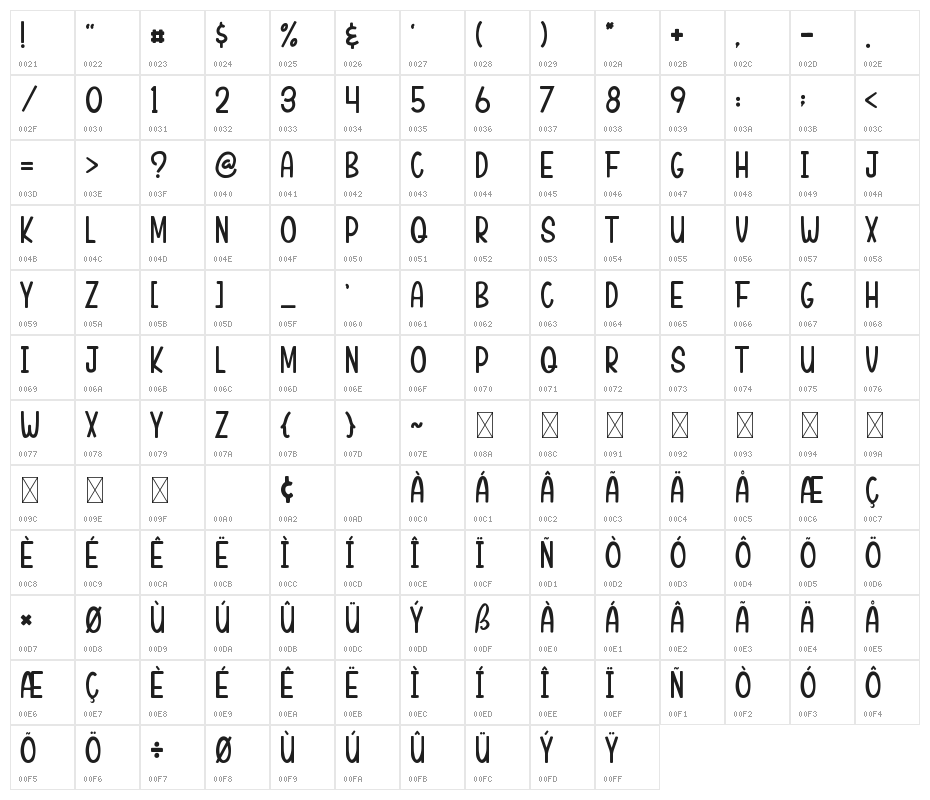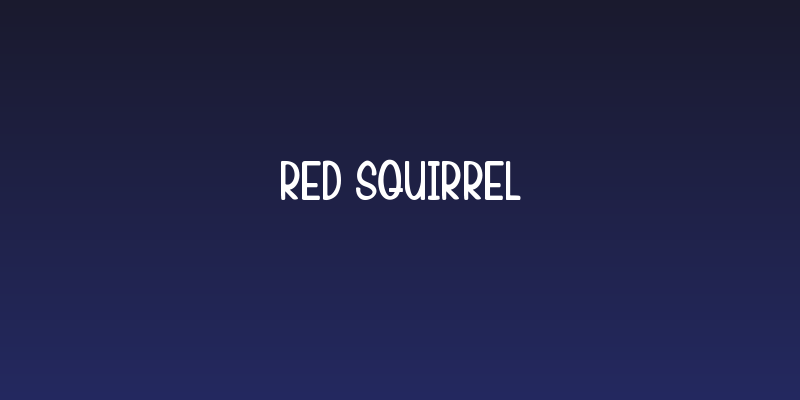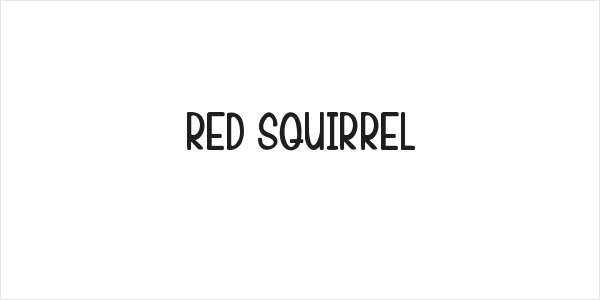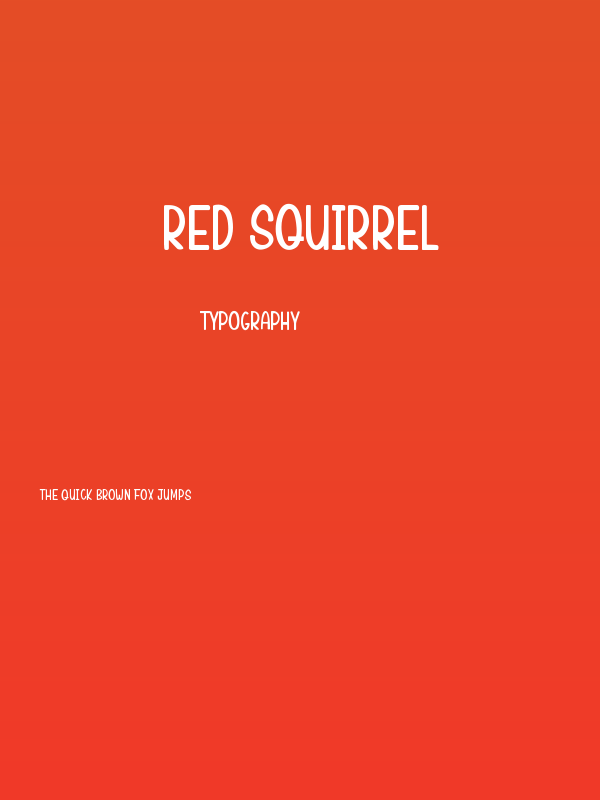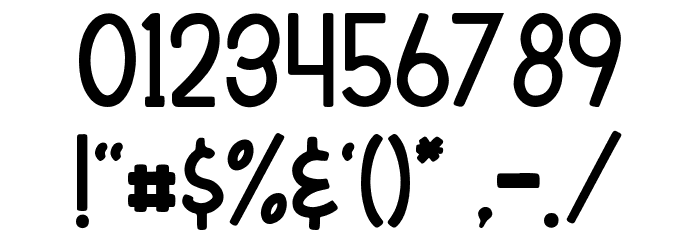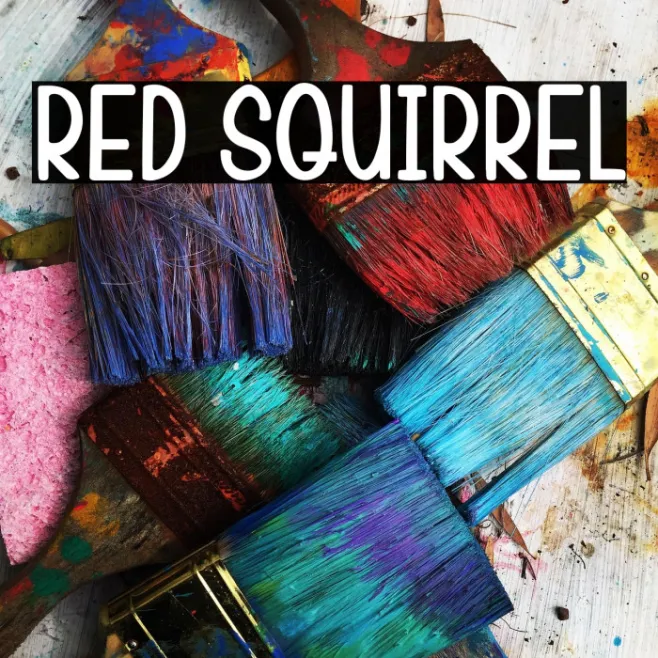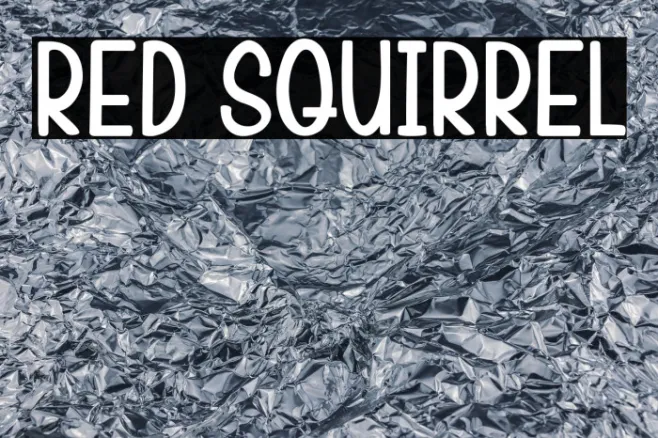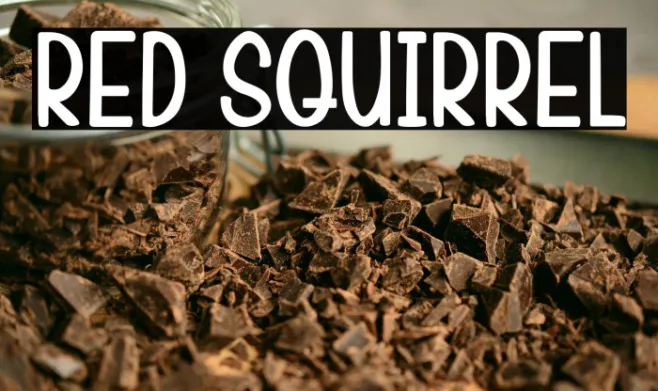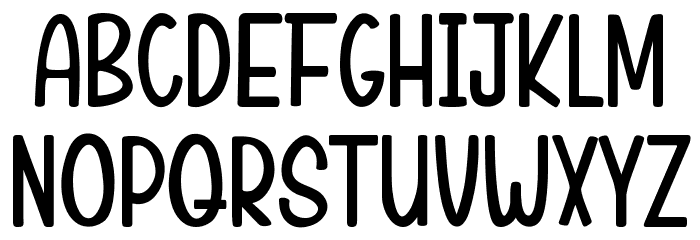
Red Squirrel Font
Red Squirrel Description
This font features a playful and rounded style, characterized by its smooth curves and friendly appearance. The letters are uniformly bold, with a consistent stroke width that gives it a cohesive look. The characters have a slightly condensed form, which adds to its charm and makes it suitable for a variety of design projects. The numerals and special characters maintain the same playful aesthetic, ensuring a harmonious overall appearance. This font is ideal for projects that require a fun and approachable feel, such as children's books, playful branding, or casual invitations.
| Proposed Projects | Children's books, playful branding, casual invitations, greeting cards. |